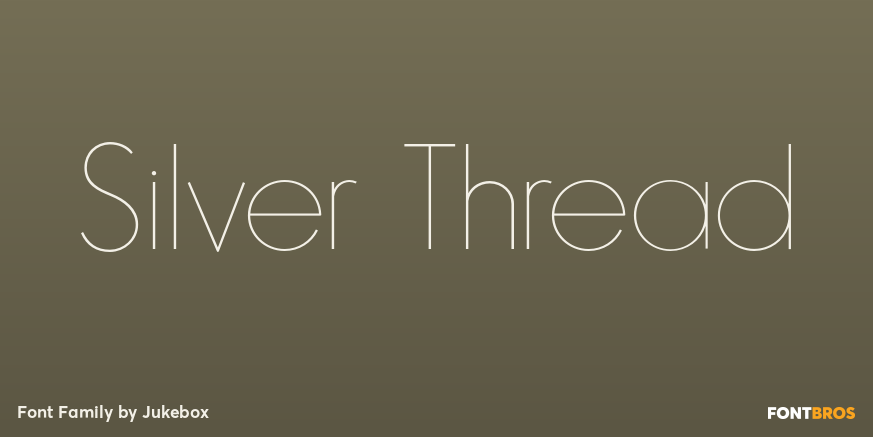
Silver Thread
About Silver Thread
Silver Thread is a hairline thin geometric sans serif font with both art deco and 1970s elements to it. Perfect for any project that needs a typeface which evokes elegance and sophistication. Digitally revived from an older photo-typositing face, Silver…